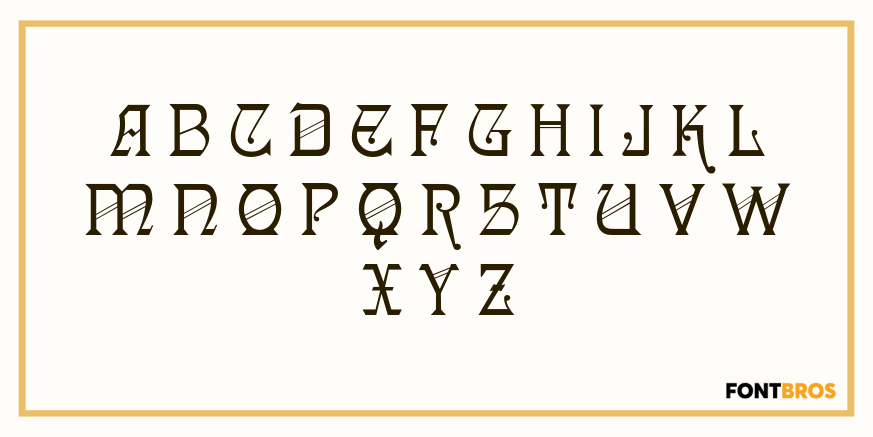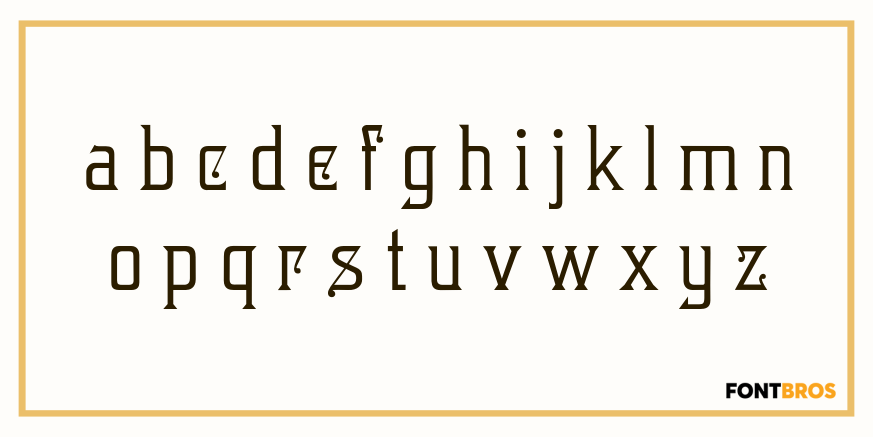
Brevet
Font Family by Solotype
Authentic copy of the original, with a couple of minor changes to the caps, making them fit better.
Although made for the American market by an American typefounder, we found this font in a York, England printshop when we went on a second visit to the famous DeLittle Wood Type factory.